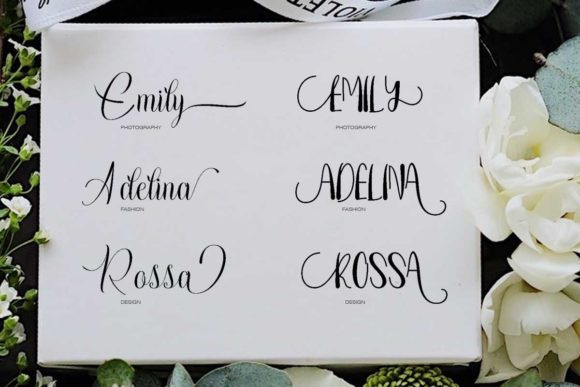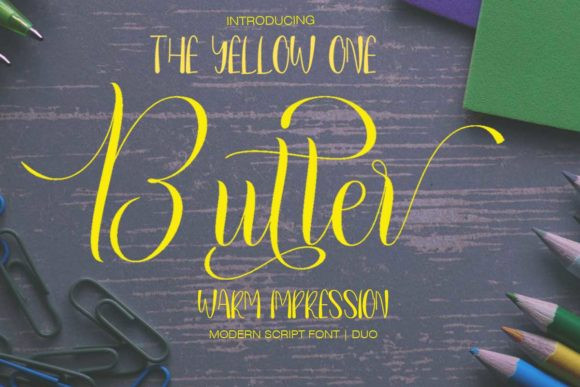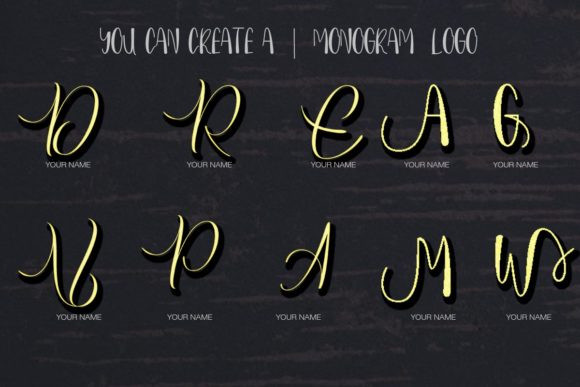
Butter Font
I can’t believe it’s Butter! Butter is an amazing, authentic and bold font duo. It comes in a script and sans version which can be perfectly combined to turn any design project into a stand out.